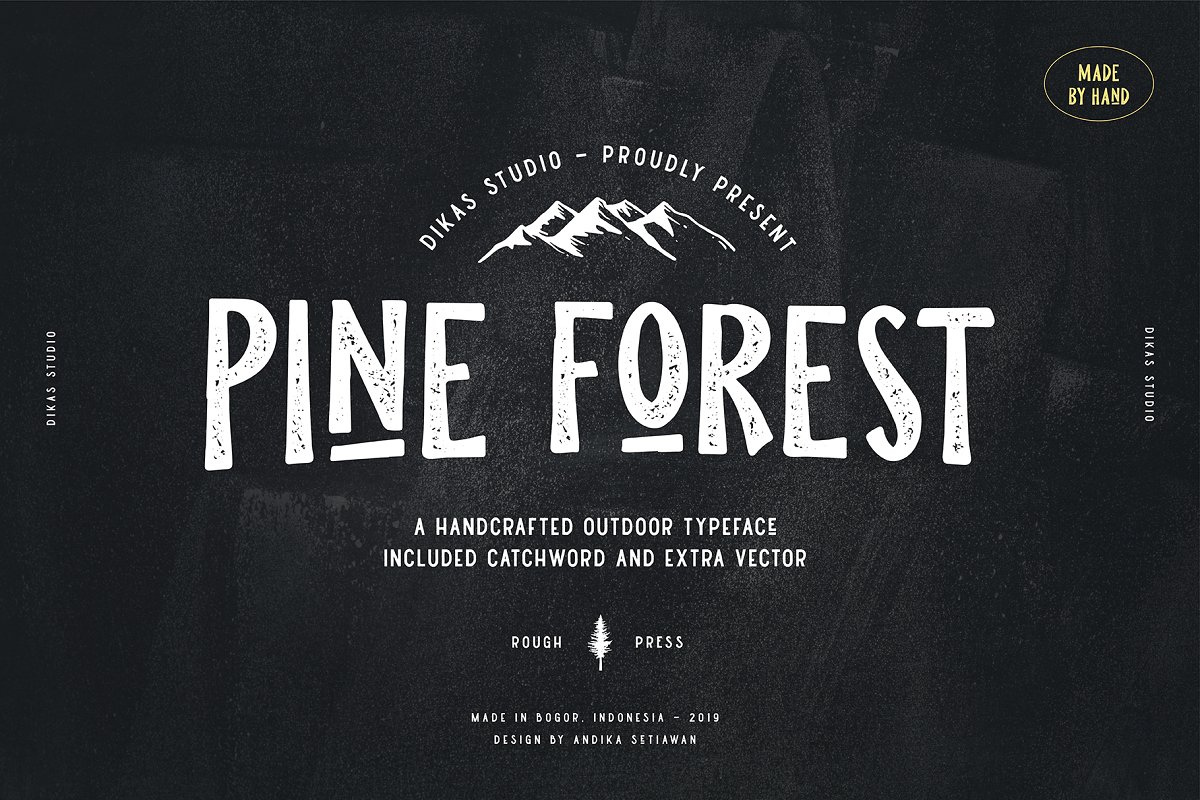
Pine Forest Font
Pine Forest Font is perfect for wilderness adventure companies, forest conservation organizations, outdoor gear retailers, mountain lodge branding, nature retreat centers, hiking trail signage, eco-tourism marketing, sustainable forestry companies, wilderness education platforms, and authentic outdoor lifestyle brands.
Pine Forest Font creates excitement because it embodies the majestic tranquility and natural strength of ancient woodland with its towering letterforms and tree-inspired character design. The font's sturdy proportions and forest aesthetic instantly convey natural authenticity and wilderness wisdom, making any brand appear deeply rooted in nature and genuinely committed to forest preservation. Its carefully crafted woodland details and evergreen character create an immediate sense of forest serenity that captivates audiences seeking wilderness experiences, natural quality, and products that celebrate the transformative power of forest connection and environmental stewardship.
The Pine Forest Font family includes multiple weights and styles: Regular, Bold, Light, Medium, Italic, Condensed, Extended, Woodland, Natural, and Evergreen versions. Each variant maintains the font's signature forest character while offering different levels of natural styling and wilderness authenticity suitable for various outdoor and environmental applications.
This majestic typeface brings the authentic spirit of ancient forests into contemporary environmental design with remarkable strength and natural appeal. Pine Forest Font Free Download provides outdoor brands and environmental organizations with access to premium forest-inspired typography that embodies the essence of wilderness wisdom and natural preservation. The font's towering design and forest authenticity make it ideal for businesses seeking to establish meaningful connections with nature-conscious audiences who appreciate forest conservation, wilderness experiences, and the transformative power of connecting with ancient woodland environments that restore balance and inspire environmental responsibility. Whether you're creating branding for outdoor adventure companies, designing materials for conservation organizations, developing communications for eco-tourism ventures, or producing content for wilderness education platforms, this font delivers the authentic forest atmosphere that resonates with audiences seeking genuine wilderness experiences, natural quality, and the profound peace that comes from embracing authentic forest connection. Its versatile design ensures outstanding performance across both rugged printed materials and sophisticated digital environmental platforms while maintaining the character of authentic woodland typography. The font excels in applications requiring environmental credibility and forest appeal. Conservation professionals appreciate its ability to convey forest authenticity while remaining highly functional for various environmental communications and wilderness promotional materials. The comprehensive character set includes nature symbols and extensive international language support, making it perfect for global environmental brands and international forest conservation organizations seeking to communicate authentic woodland values, forest preservation, and natural excellence to diverse worldwide audiences who embrace environmental stewardship, appreciate forest wisdom, and value the transformative power of genuine forest connection that heals through the ancient rhythms of nature, creating harmony through forest mindfulness and the enduring strength of woodland environments that sustain all life through their generous gifts of clean air, fresh water, and the sacred sanctuary of forest peace.